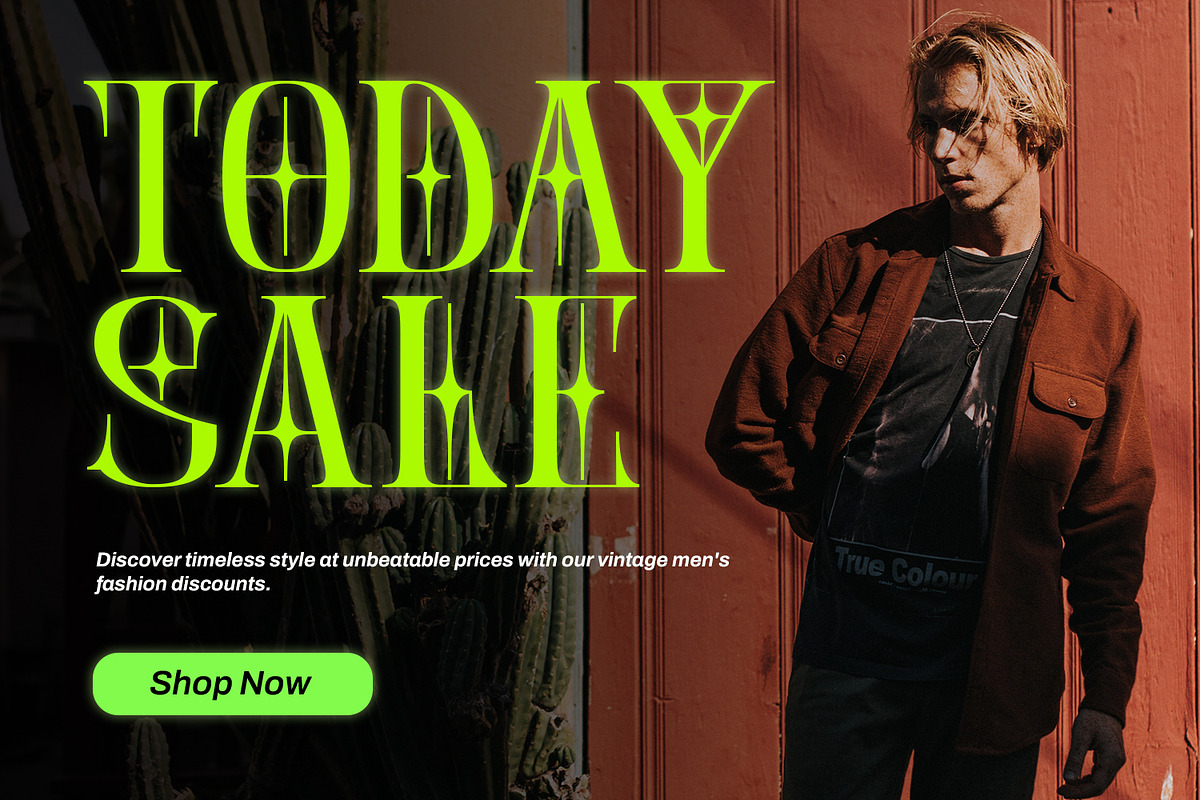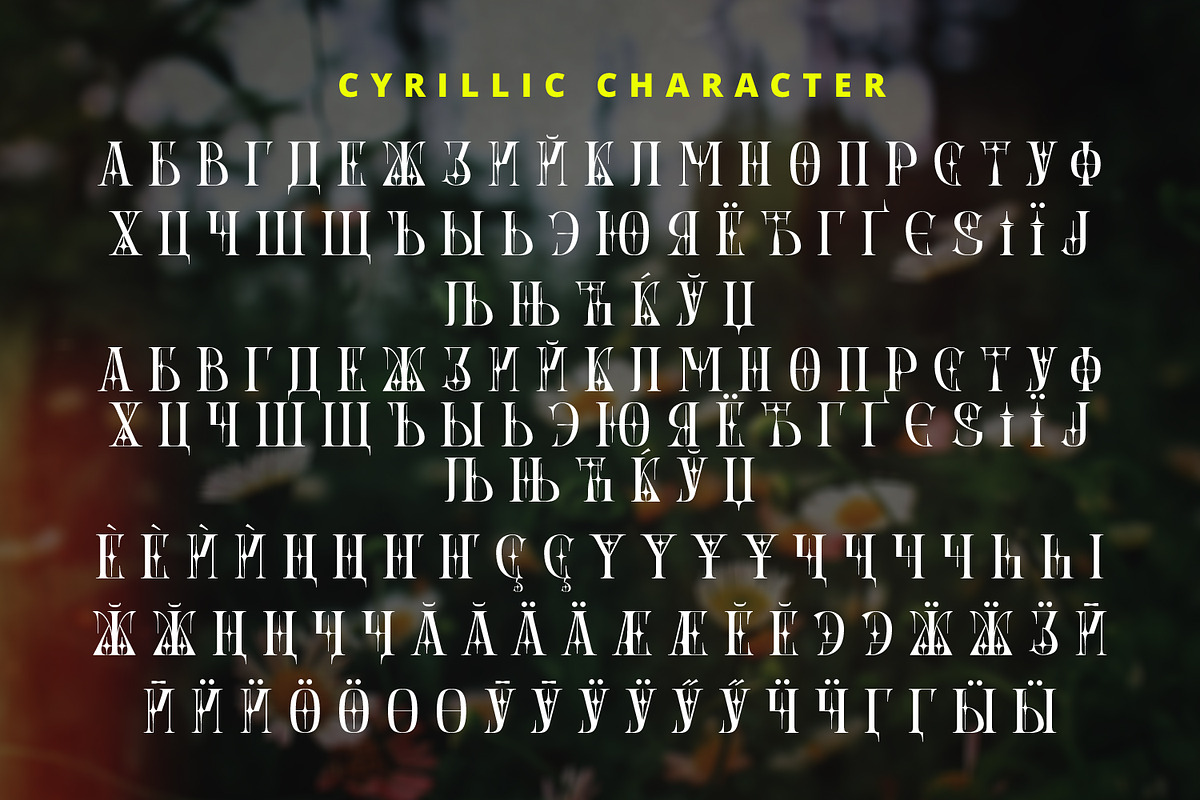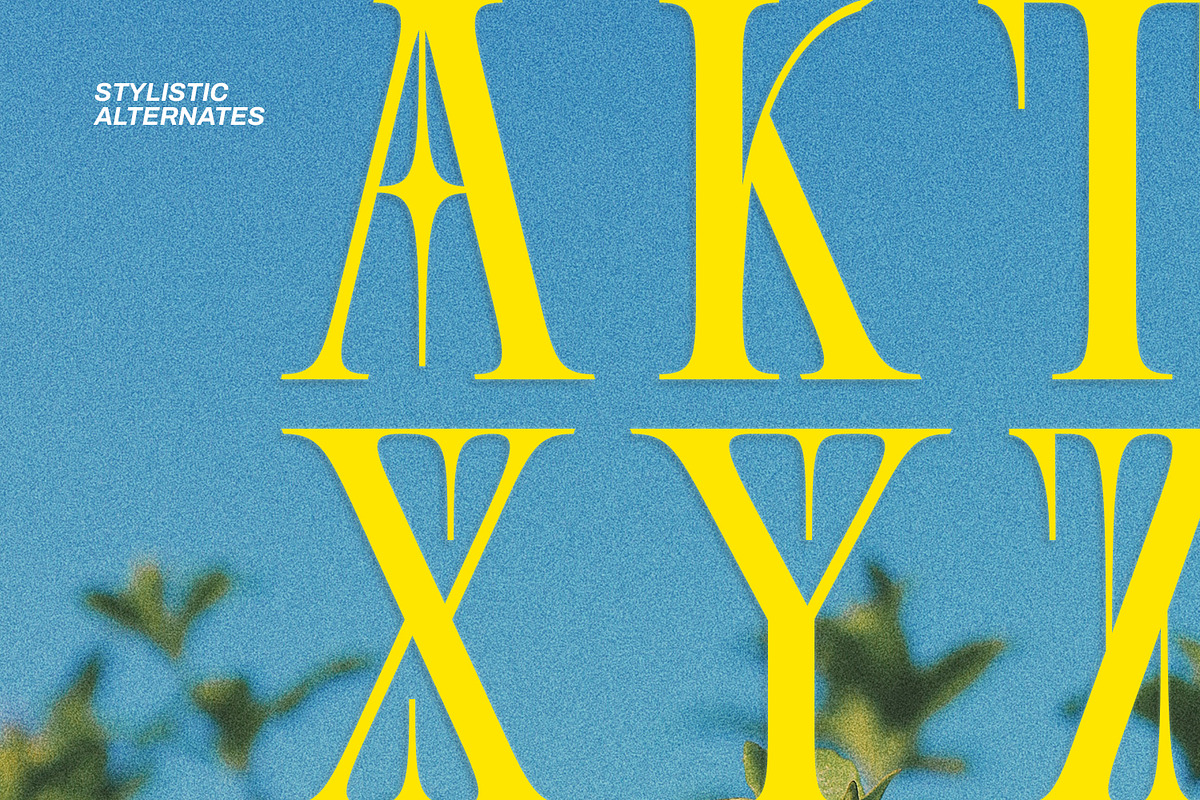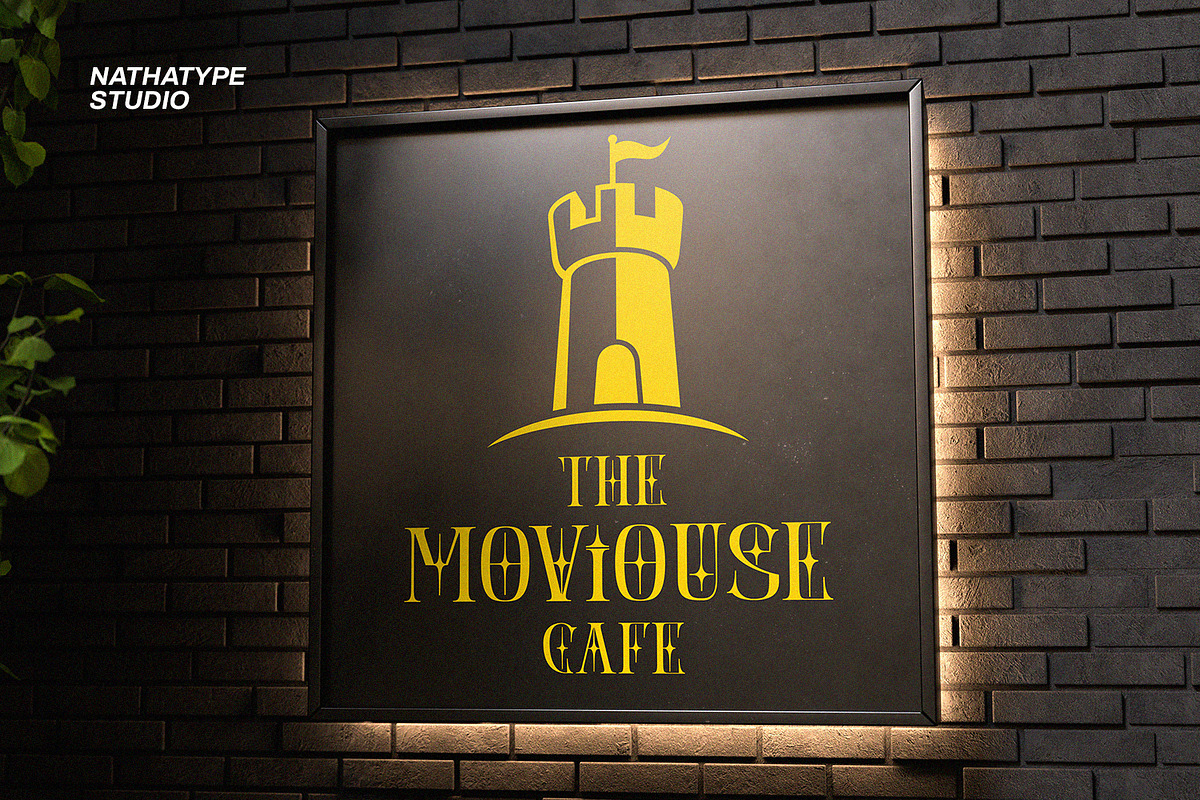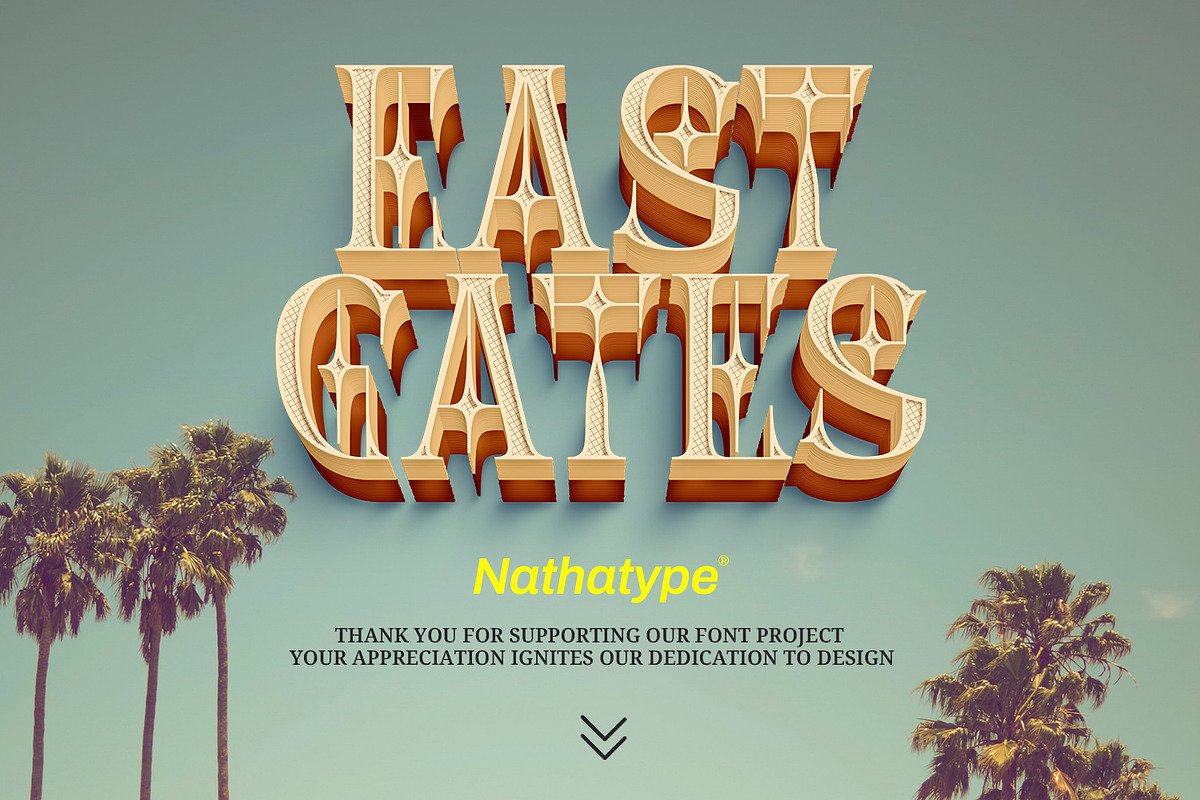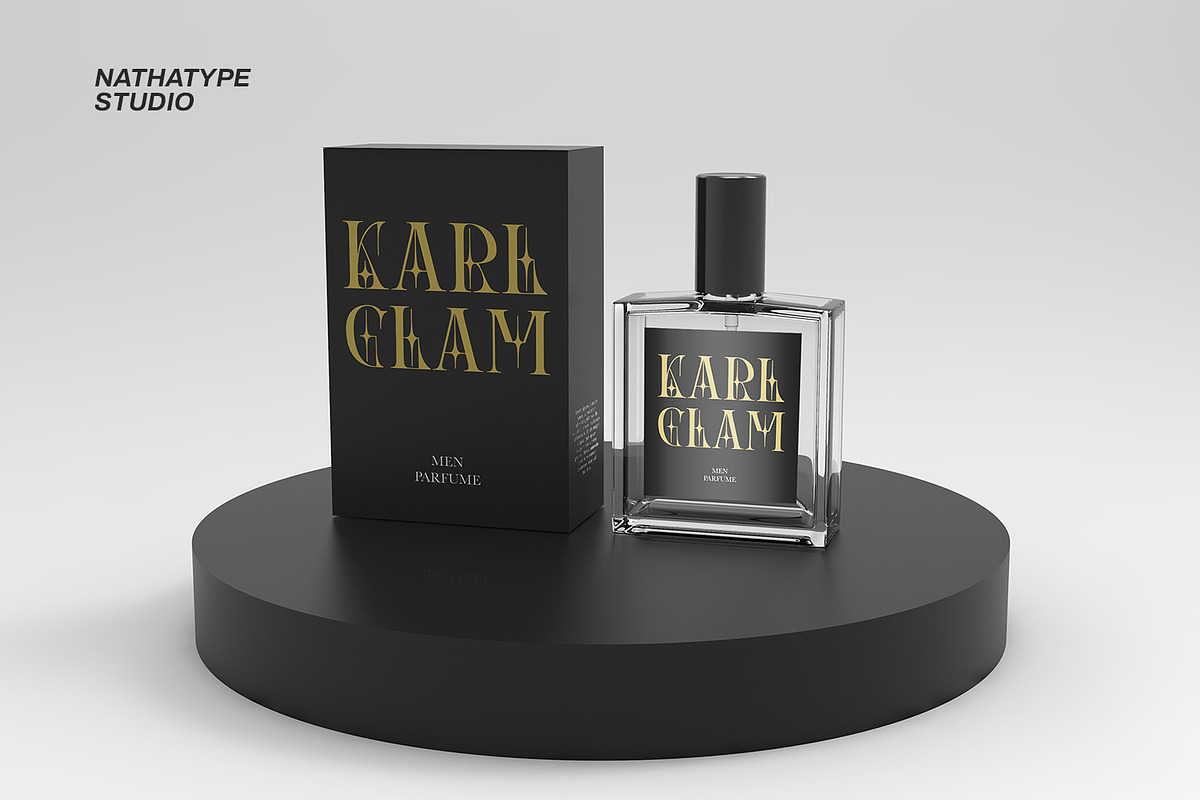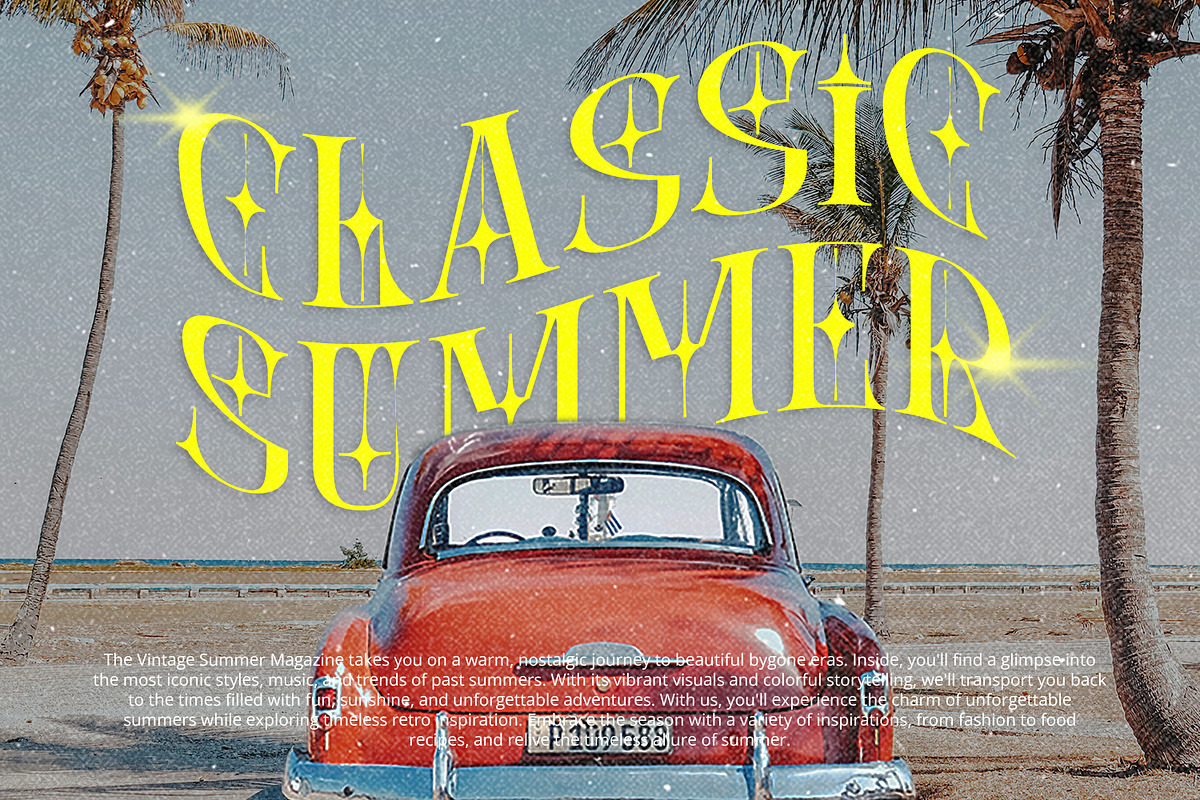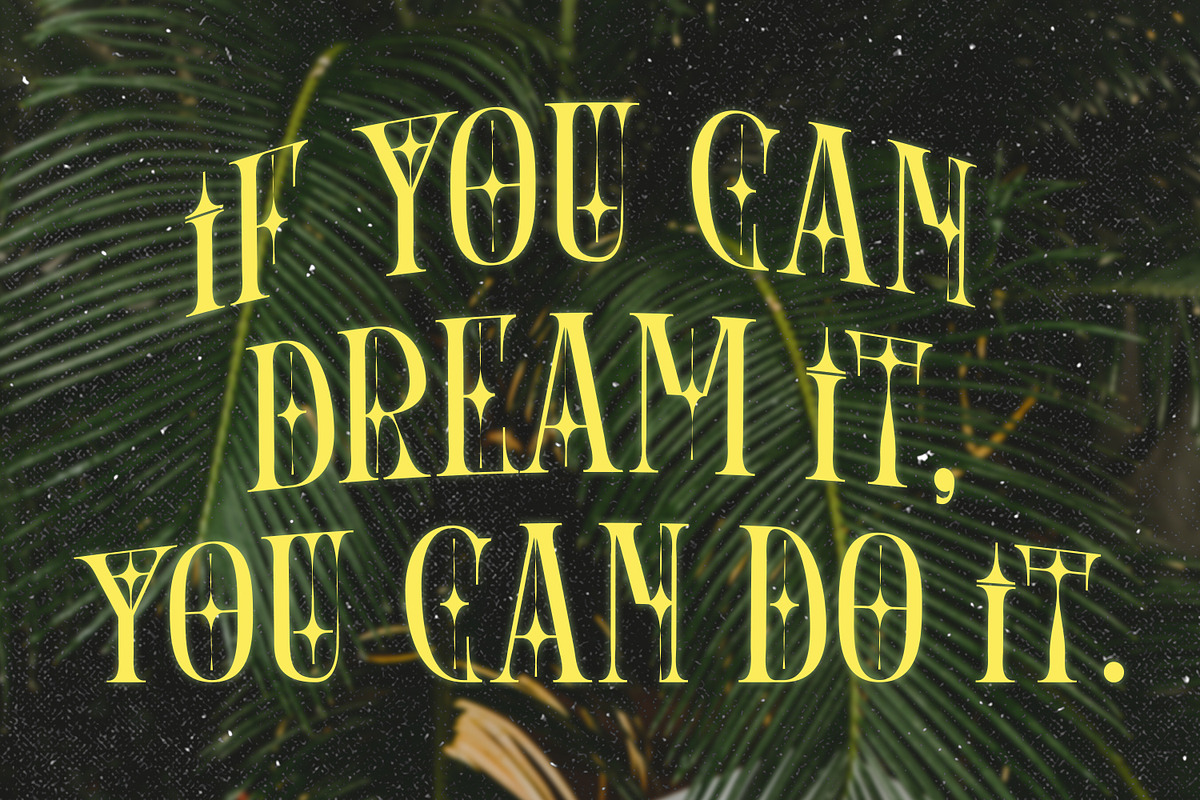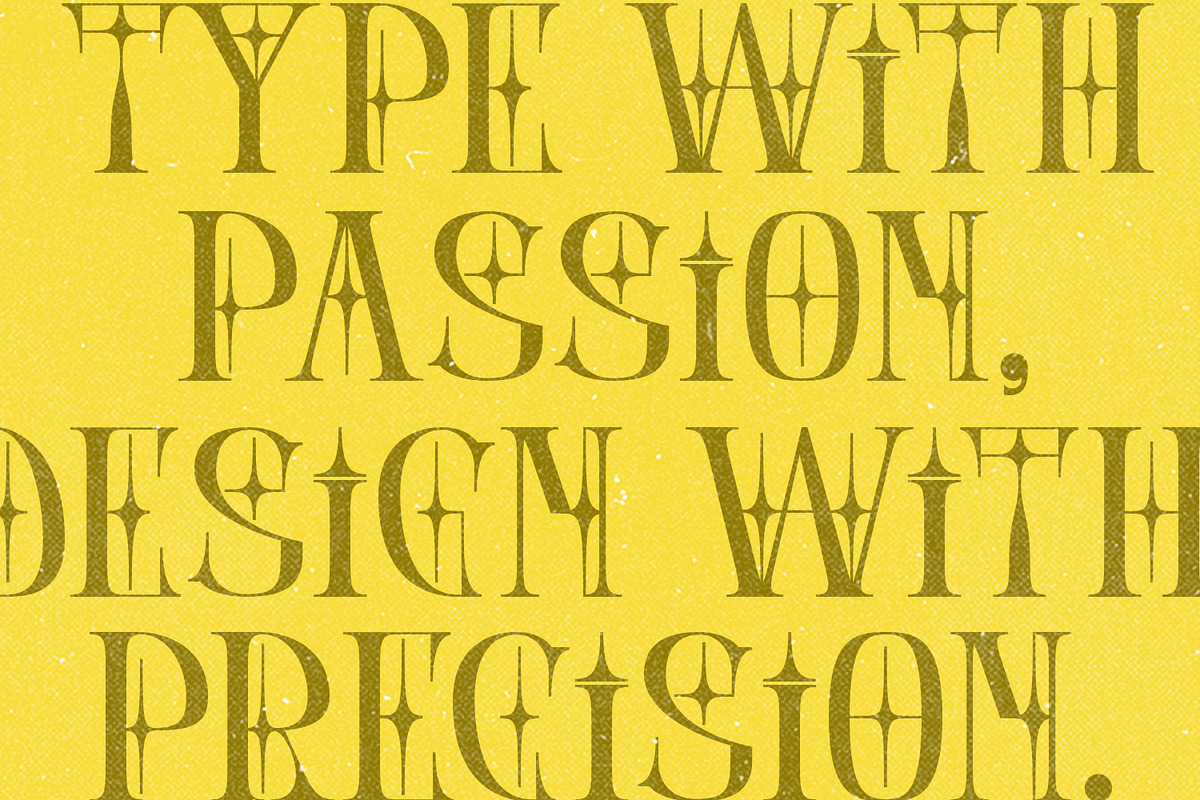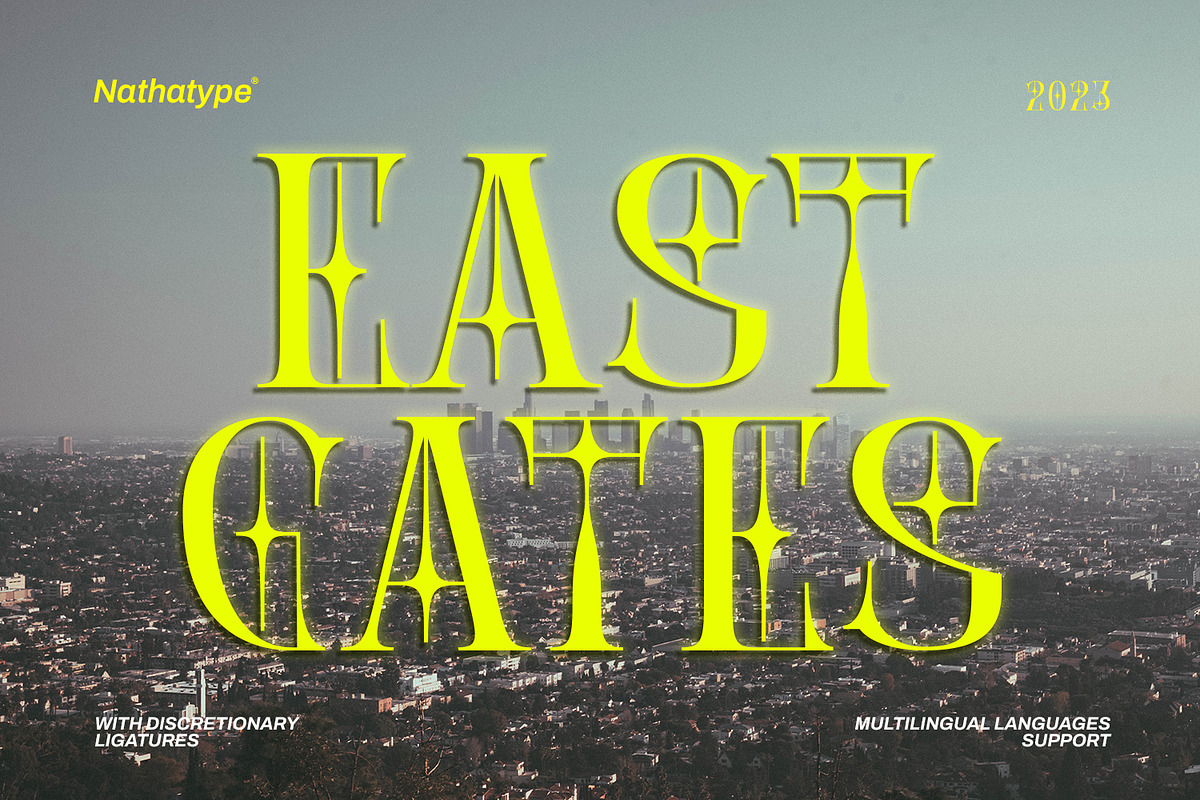
East Gates
East Gates is a mesmerizing display font that commands attention. Each letter is a work of art, meticulously crafted to elevate the overall appearance with a perfect blend of visible contrast and intricate details.
The characters in East Gates boast a generous size, ensuring a bold and impactful presence. The visible contrast between thick and thin strokes adds a dynamic quality to the font, creating a sense of both strength and delicacy. What sets East Gates apart is the enchanting ornamentation gracing the letters, enhancing the overall beauty with a touch of intricate design. Enjoy the features here.
East Gates fits in headlines, logos, posters, flyers, branding materials, greeting cards, print media, editorial layouts, and many more designs. Find out more ways to use this font by taking a look at the font preview.